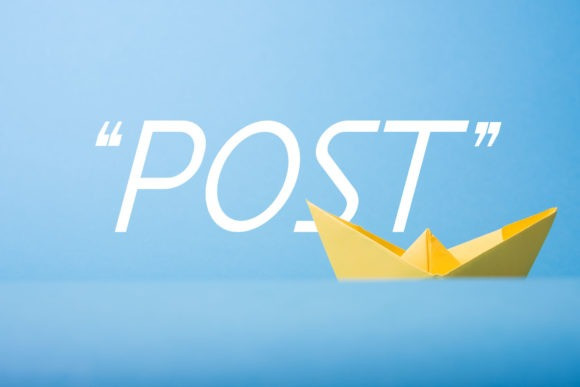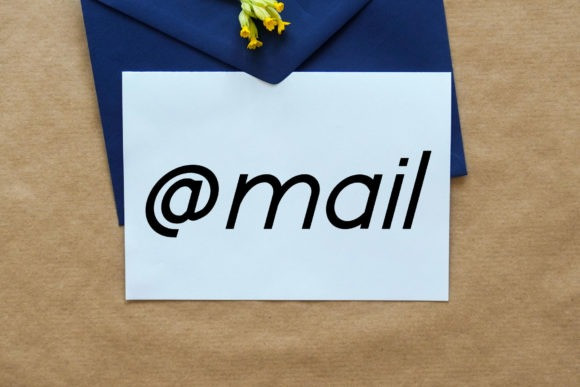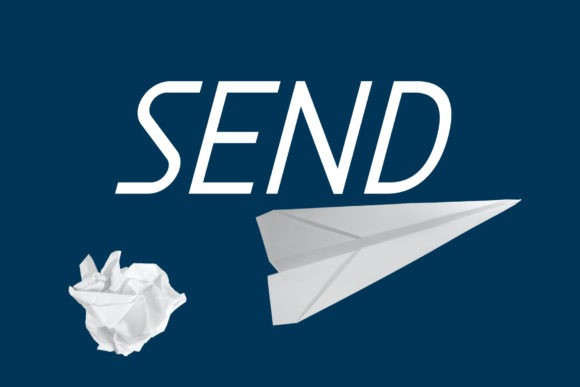
Send Font is a minimal and neat sans serif font. It can easily be matched to an incredibly large set of projects, so add it to your creative ideas and notice how it makes them stand out!